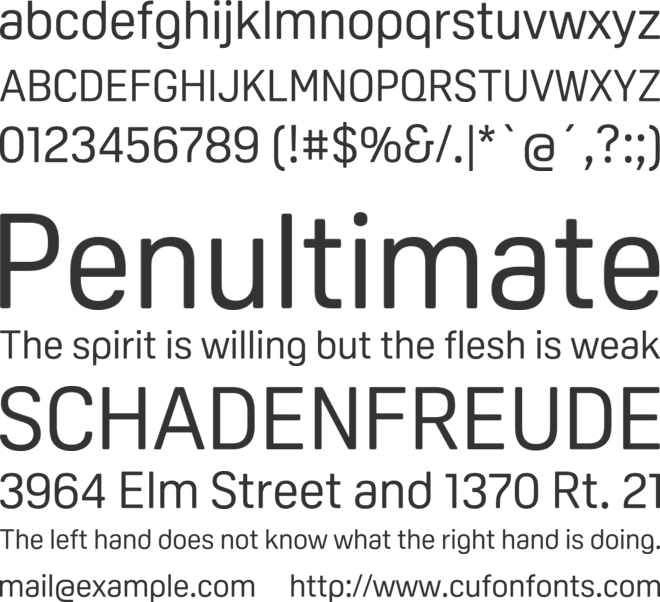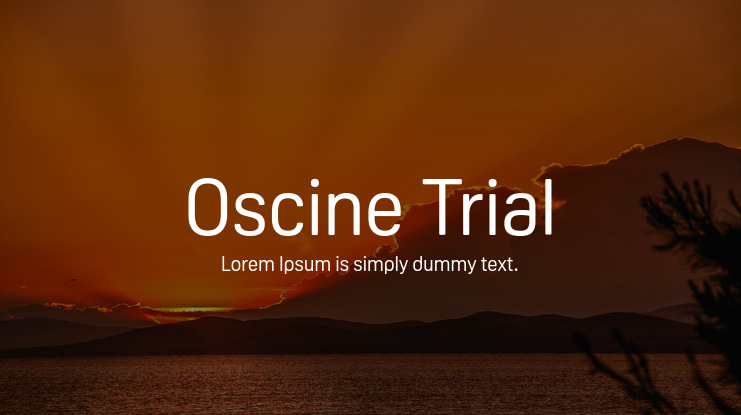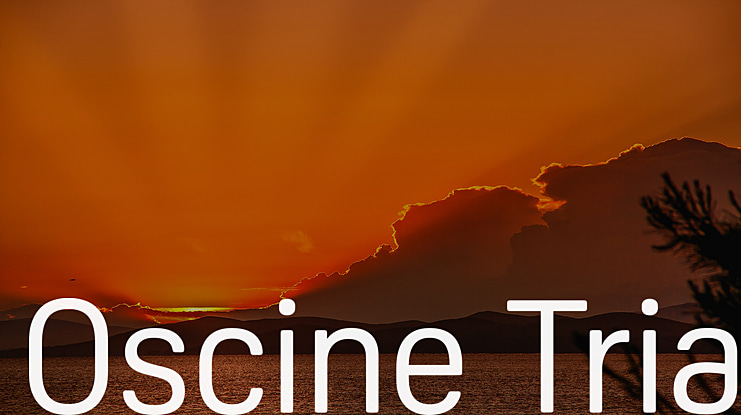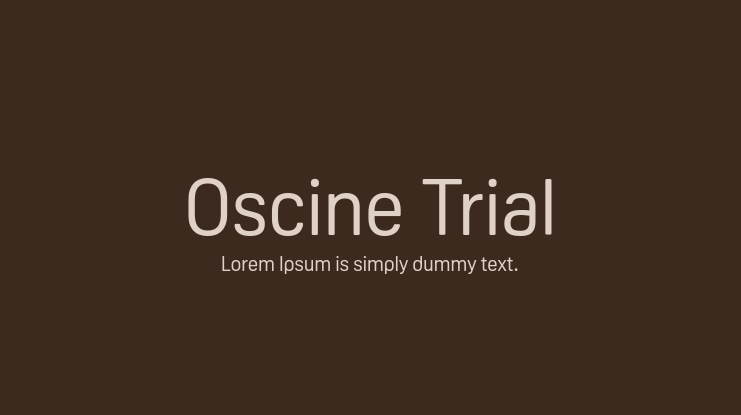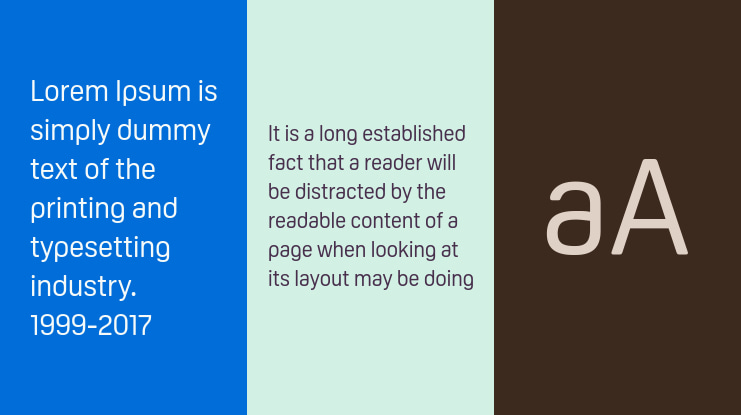
Oscine Trial Font Family
A full-on go to font for logotype with modern minimalist treatment in design. Combining a highly unusual lowercase with more conventional capitals, it achieves functionality with just the right amount of character.
Square letter shapes give Oscine its basic style while the corners of its characters are rounded to make it a more friendly design. The differentiation between weights is both subtle and carefully set for optimum on-screen impact and clarity at large sizes.
Oscine isn’t a text font. It is a very flexible display font that can be used in a wide variety of situations. With Oscine, you can create a very different look and feel depending on whether you are using the uppercase and lowercase independently or combined.